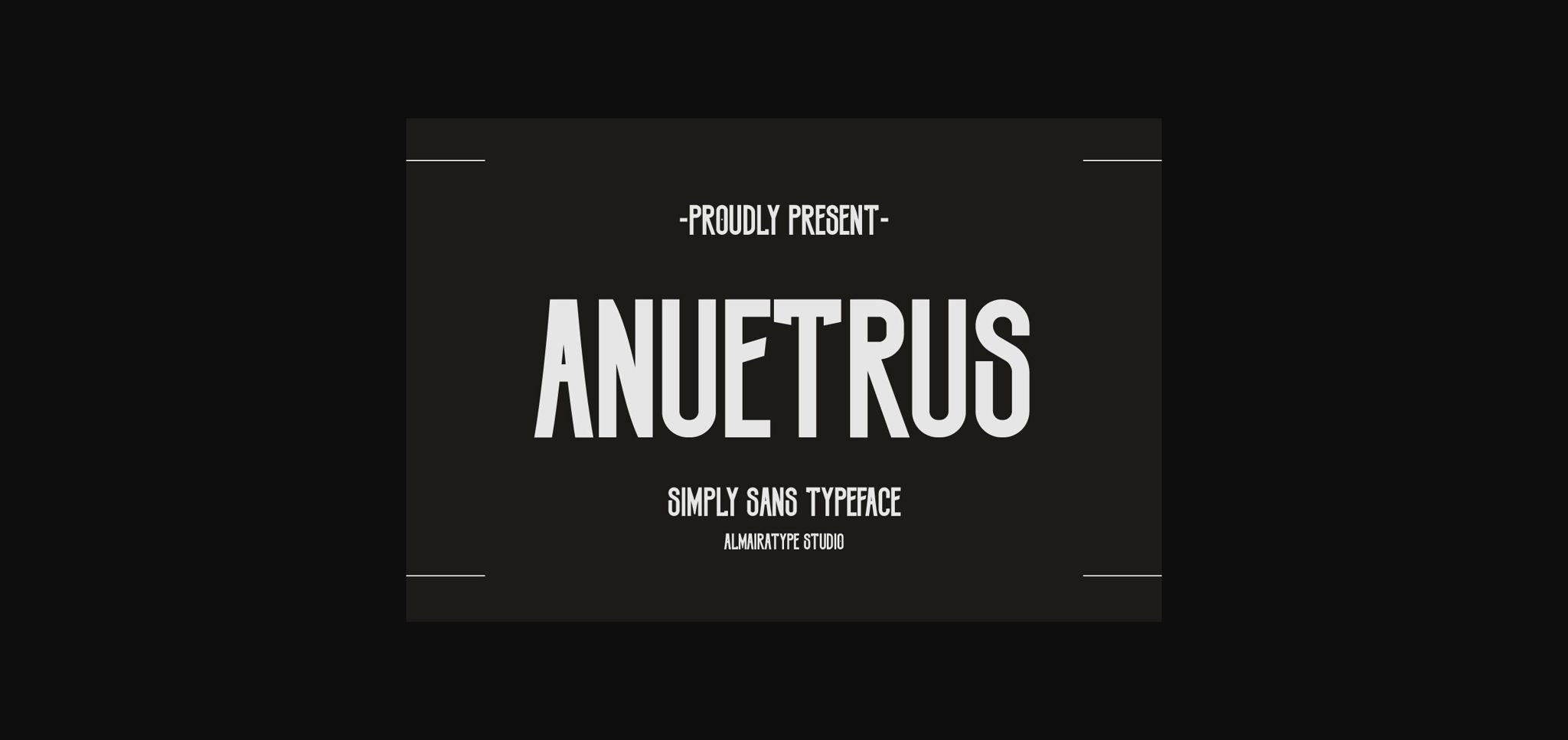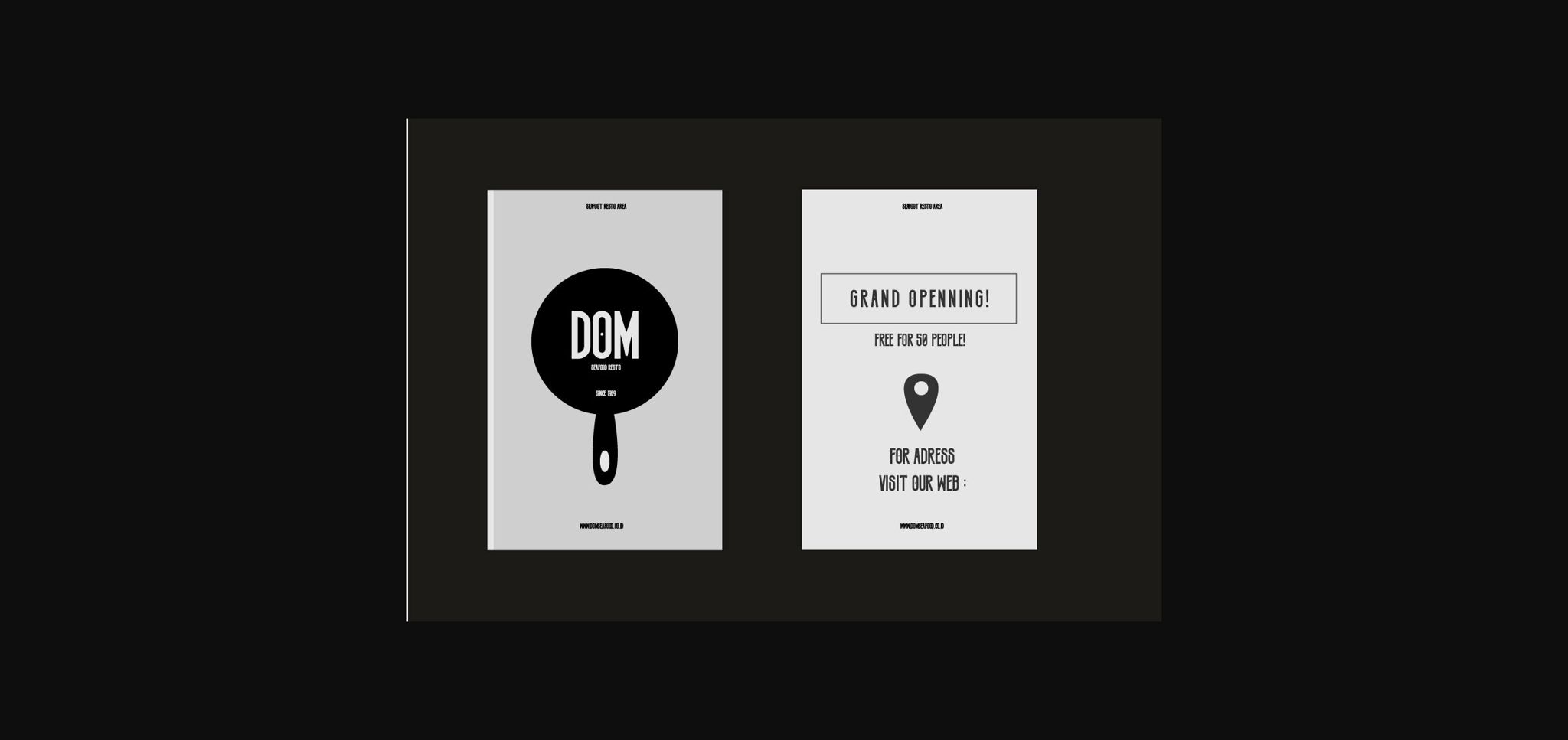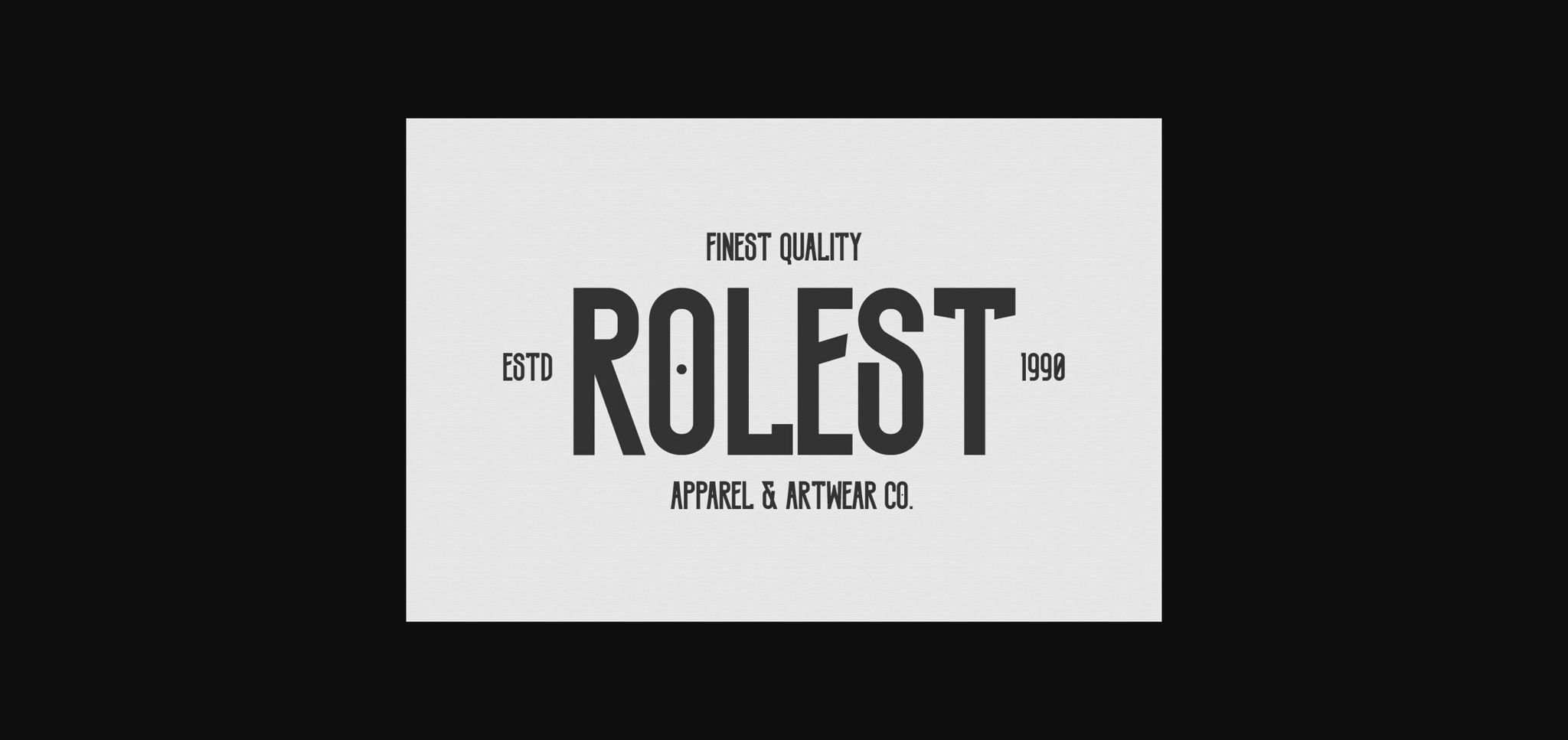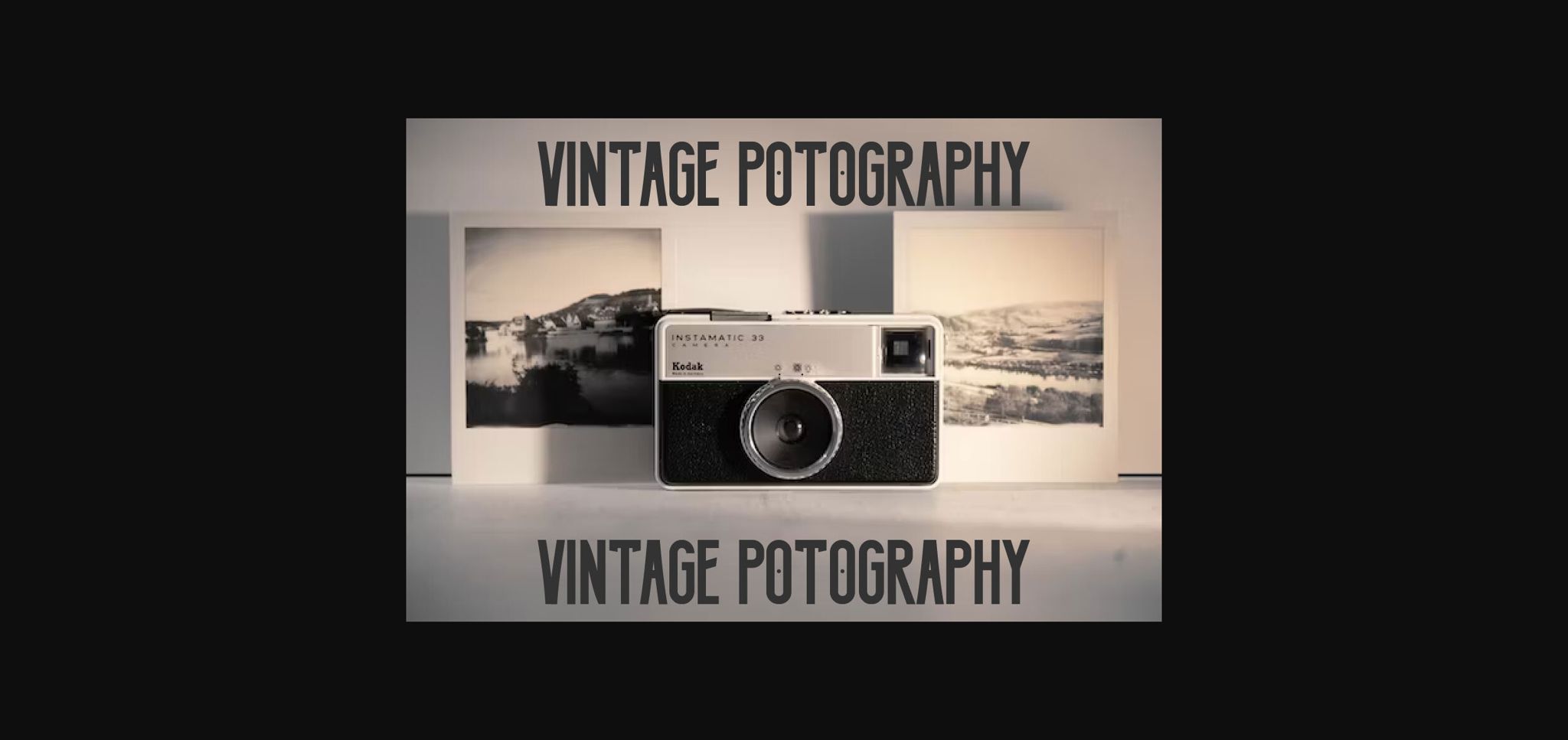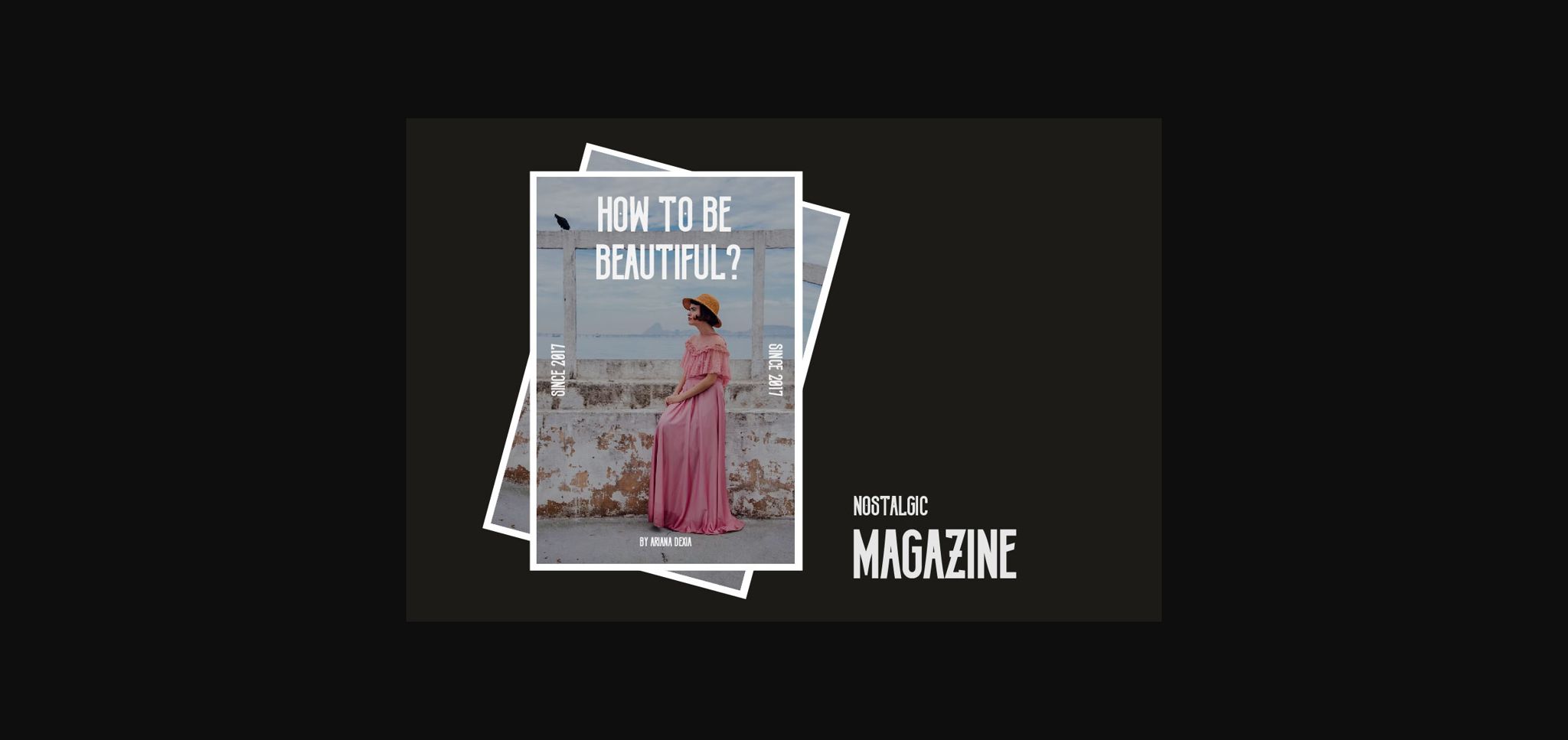
About Anuetrus Font
Introducing Anuetrus, a sleek sans-serif font with a modern flair. Elevate your designs with its unique style and versatility. Packed with creative features, this font is a must-have for craft enthusiasts and graphic designers. Benefit from its bold and dynamic presence, making your projects stand out effortlessly. Explore endless possibilities with Anuetrus – your go-to choice for crafting exceptional visuals.